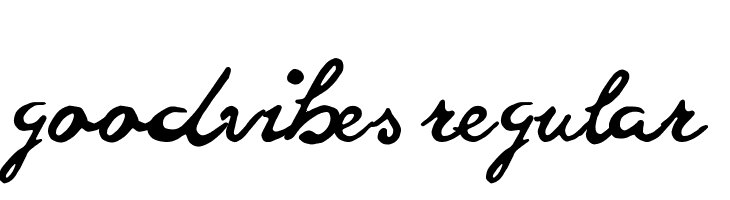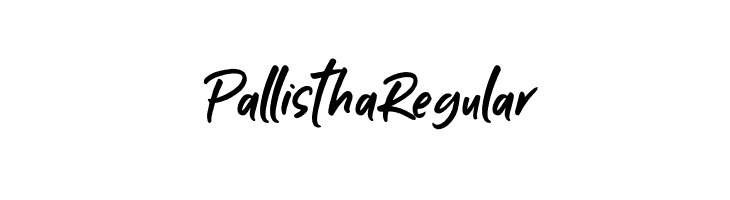
A classic, elegant script font with flowing, cursive letters and ornate flourishes.
A bold, italic, and playful font with a handwritten feel.
Bold, blocky font with characters enclosed in black squares.
A bold, 3D italic font with a dynamic and edgy graffiti-like style.
A bold, outlined font with sharp, angular edges and a geometric style.
A playful and whimsical font with rounded edges and open counters.
A fluid, cursive handwritten font with elegant, flowing lines.
A sleek, modern, and compressed light italic font with a dynamic style.
A sci-fi themed dingbat font with character icons and silhouettes.